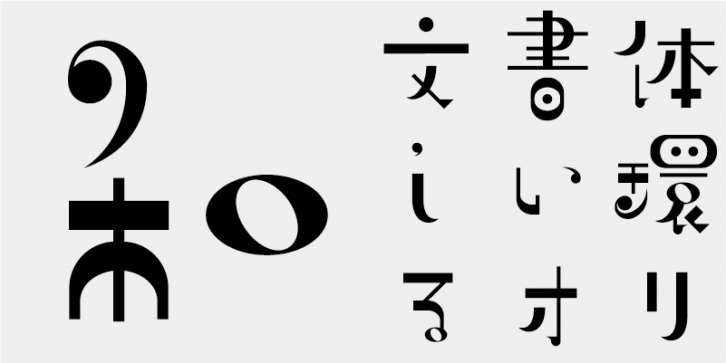
The motif of this typeface design is musical symbols. Elements of musical symbols are arranged in an unbalanced way to form letter shapes. This gives text set in the typeface a comfortable visual rhythm.
This lovely typeface will make you feel as if you were walking in a park.
This is a display typeface effective for movie or TV-program titles, package designs, and eye-catching advertising copy, etc.
This font includes top 1,000 kanji characters chosen from character frequency tables made by newspaper companies, publishing houses and linguistic research institutes, plus 206 kana characters and punctuation marks.
In Japanese font production today, the 7,000 characters in the JIS standard are considered essential. But, do all fonts really need 7,000 characters? In the age of phototypesetting, far fewer characters were needed. FONT1000, a group of independent type designers, started with that simple question. We have selected the minimum 1,000 kanji (ideographic) characters needed for typesetting in Japanese and actively created typefaces and fonts to support it. This 1,000-kanji-character set was selected using character frequency data compiled by newspaper companies, publishing houses and linguistic research organizations, etc., and also includes kana syllabic characters and punctuation marks. FONT1000 was formed in 2001 with 25 designers and 25 typefaces. Today we have 130 typefaces and have grown to include nearly 40 members, making it possible to work on fonts with more characters.